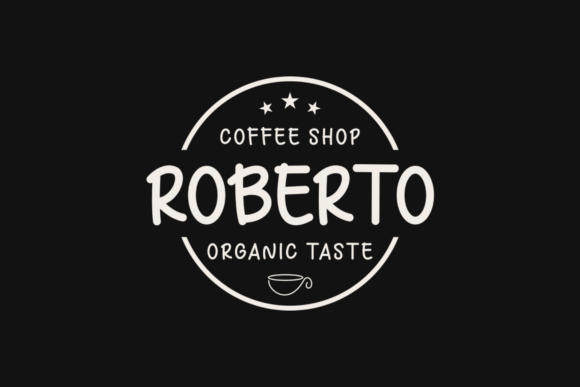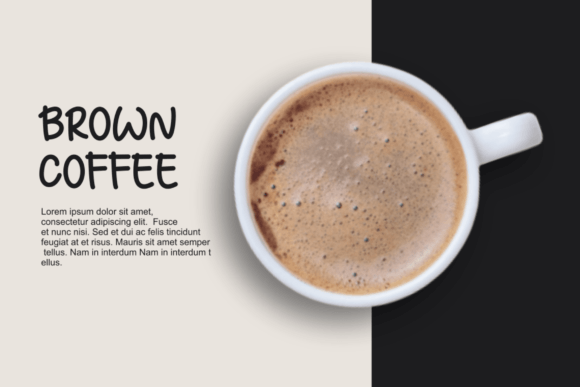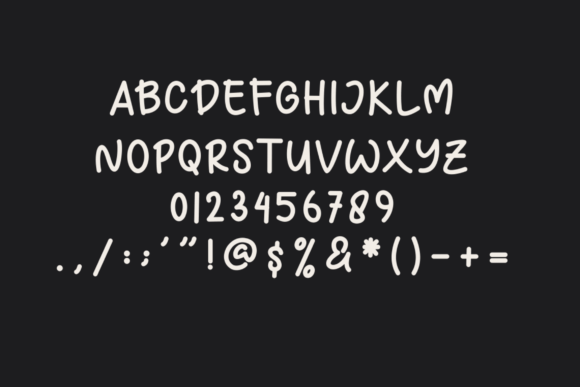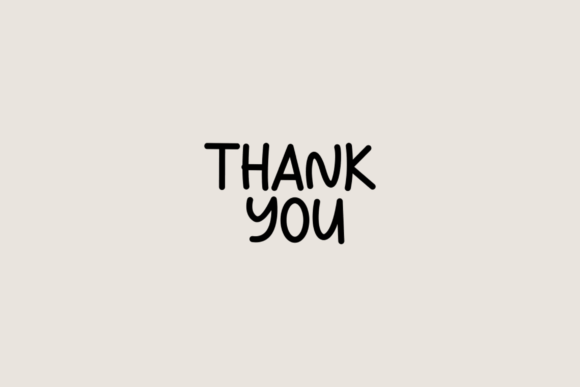
Introduction to Mrquick Font
Mrquick is a bold and authentic handwritten font.
The font is suitable for any branding project like logo, t-shirt printing, esports, and many more It looks outstanding in a wide range of contexts.